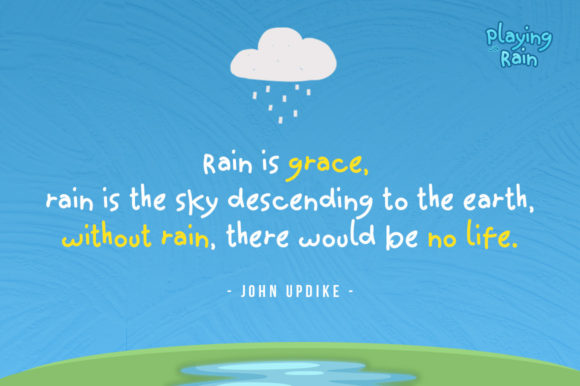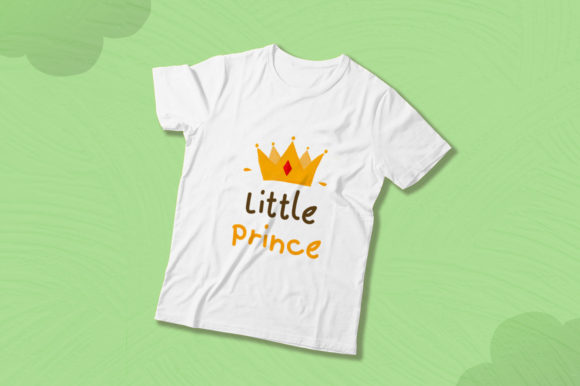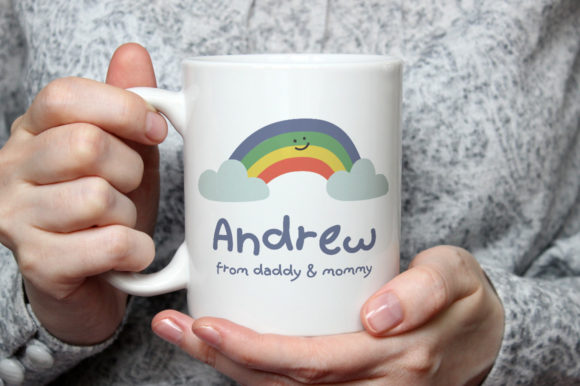
Introduction to Play with Rain Font
Who among us hasn’t spent hours as a child watching the raindrops fall from the sky, mesmerized by their rhythmic beat and the way they danced on the windowpane? For many of us, those carefree moments sparked a love for creativity and imagination that has stayed with us into adulthood. And what better way to tap into that childhood wonder than with the charming Play with Rain Font?
This delightful display font embodies the very essence of playfulness and authenticity, making it the perfect choice for any children’s activity or school project. With its transparent background and high-quality design, it’s a valuable resource for designers looking to add a touch of whimsy to their creative projects.
Not only is the Play with Rain Font free to download, but it’s also a fantastic addition to any designer’s toolkit. Whether you’re working on a children’s book, a educational website, or a promotional material, this font is sure to bring a smile to your face and a touch of magic to your design.
Key Features of Play with Rain Font
- Transparent background, allowing for seamless integration with various design elements.
- Designed with a unique, artistic style that adds a creative touch to any project.
Honest Review: Play with Rain Font
As a designer, I’m always on the lookout for high-quality design resources that can elevate my creative projects. Recently, I stumbled upon the Play with Rain Font, and I’m excited to share my thoughts on it.
- ✨ The font is incredibly versatile and can be used in a variety of creative projects, from web design to print materials.
- ✨ The font’s transparent background makes it easy to layer and combine with other design elements.
- ⚠️ The font may not be suitable for projects that require a more formal or professional tone.
- ⚠️ Some users may find the font’s whimsical nature to be distracting or overwhelming.
Overall, I’m impressed with the Play with Rain Font’s potential for adding a touch of creativity to my design projects. While it may not be suitable for every project, it’s a valuable addition to any designer’s toolkit.
Play with Rain Font
The Play with Rain Font is a free download design resource perfect for adding a creative touch to your high-quality projects. With its transparent background, this font is ideal for use in various design applications.
The Play with Rain Font is suitable for a variety of creative projects, including social media graphics, presentations, and blog posts. Its transparent background makes it easy to layer over other design elements.
Tips for Getting the Most Out of Play with Rain Font
To get the most out of Play with Rain Font, experiment with different font sizes, colors, and layering techniques. You can also pair the font with other design resources, such as graphics and textures, to create unique and eye-catching designs.